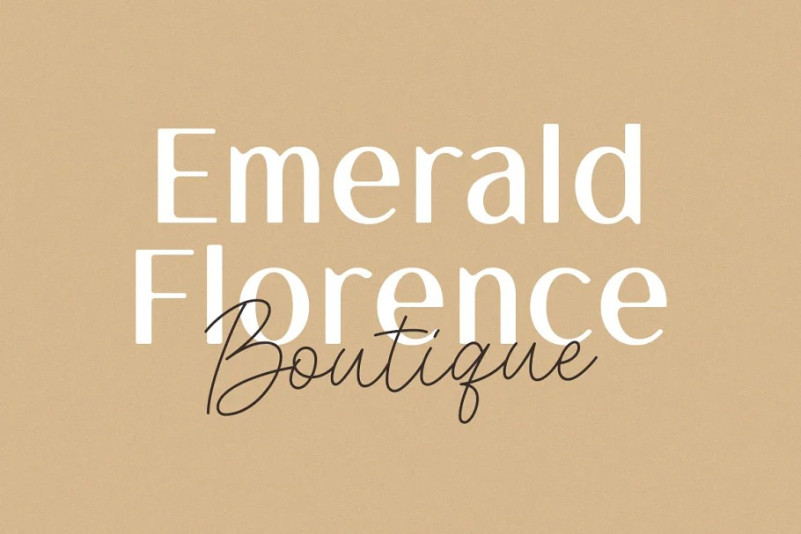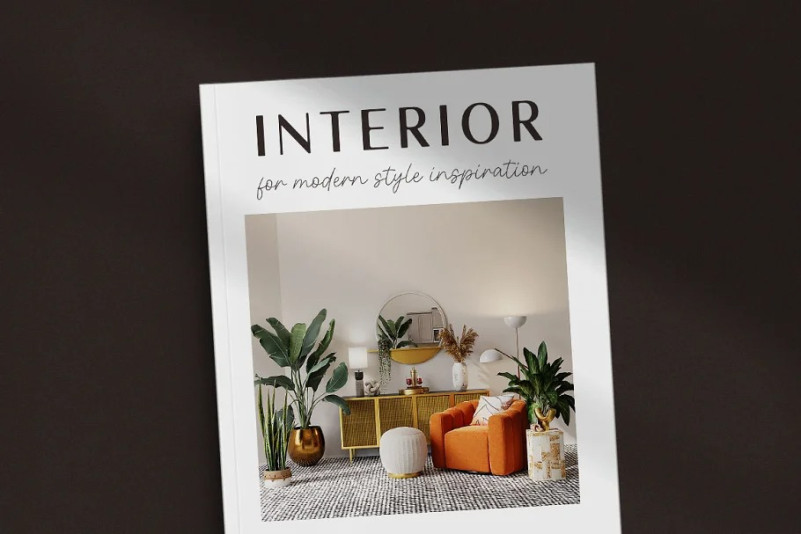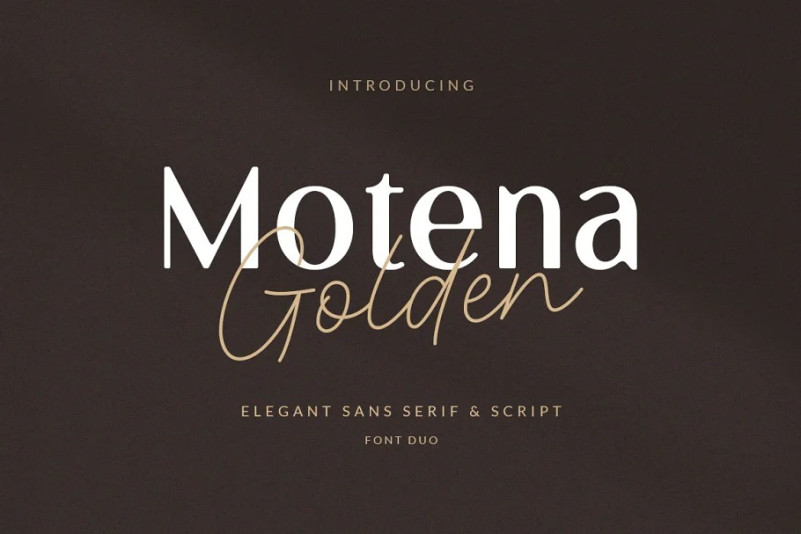
Motena Golden Font
Motena Golden Sans Serif Font is a elegant pair of script and sans serif font. It’s suitable for any project purpose such as invitation, logotype, packaging, branding and more.